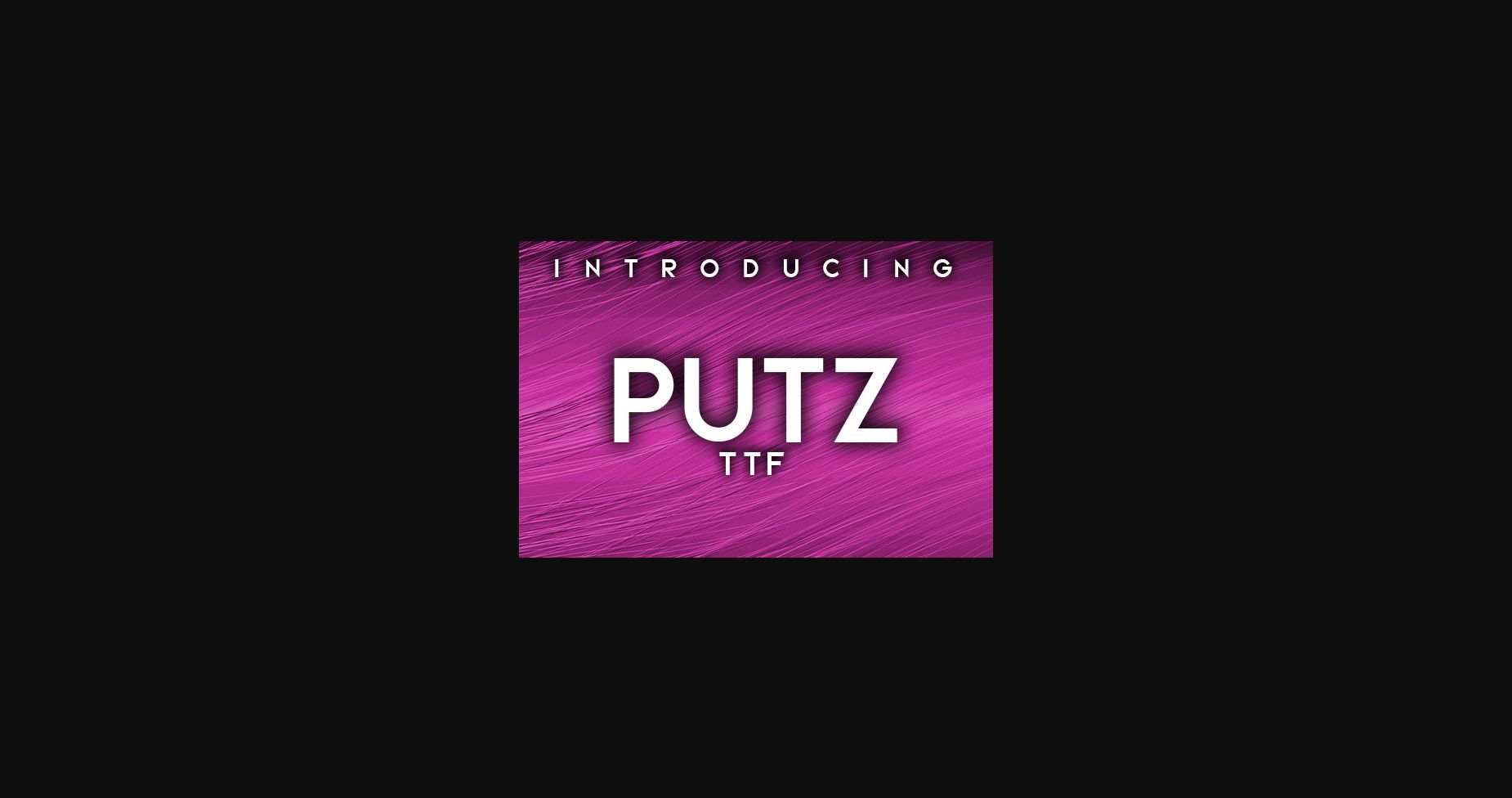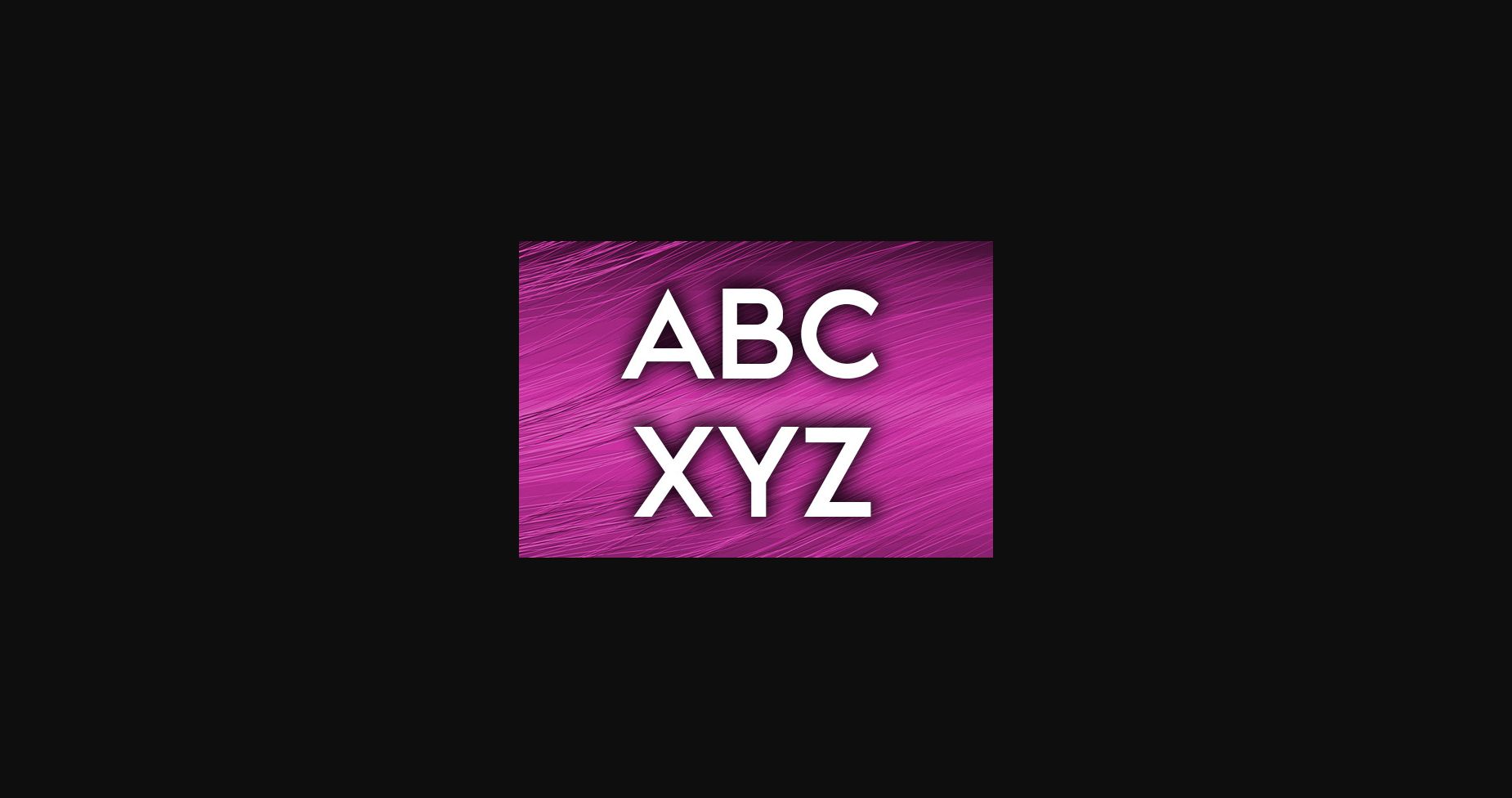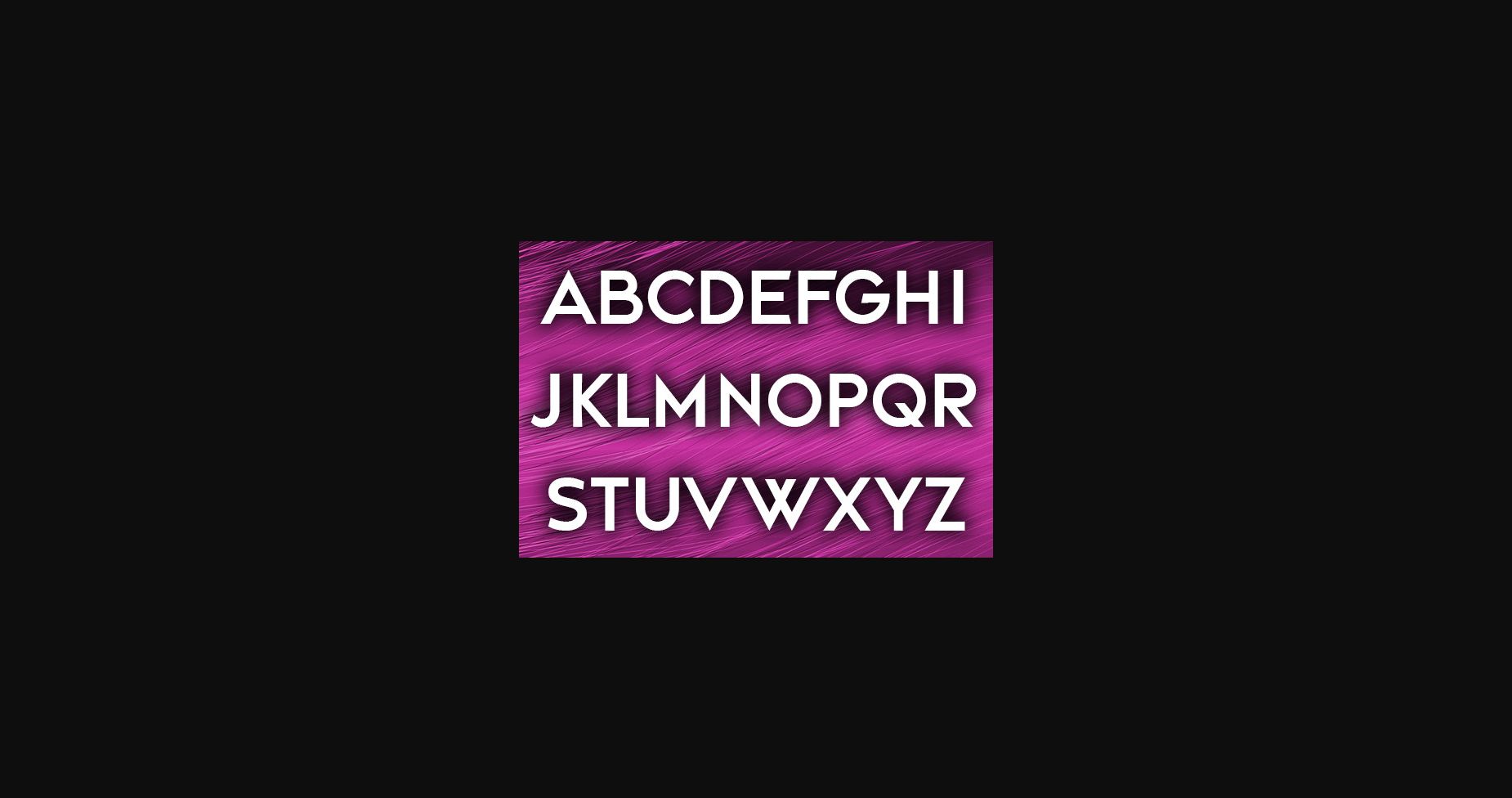
HomeSans Serif FontsPutz Font Sans Serif Fonts Putz Font FacebookXPinterestWhatsApp 1 of 5 ... Putz Font Poster 2... Putz Font Poster 3... Putz Font Poster 4... Putz Font Poster 5... About Putz Font Putz is elegant Sans Serif font that will make your designs look stunning. Use this font on posters, flyers, and t-shirts. DOWNLOAD NOW People also explored Habanero Jelly Font Halloween Spooky Font Hindya Font Mobile Font Elderflower Font Fastfood Font Santa’s Hat Font Coconut Butter Font Peeps 402 0 TagsPutzPutz Font Previous articleHighway FontNext articleAgency Font LEAVE A REPLY Cancel reply Comment: Please enter your comment! Name:* Please enter your name here Email:* You have entered an incorrect email address! Please enter your email address here Website: Save my name, email, and website in this browser for the next time I comment. Personal Use Free Sheiloria Personal Use Free Read more about this font Brandon Bromley Personal Use Free Read more about this font BD TinyFont Personal Use Free Read more about this font Good Times Personal Use Free Read more about this font BLOG Modern Sans-Serif Fonts That Brands Love in 2025 In 2025, modern sans-serif fonts remain a top choice for brands looking to project clarity, professionalism, and... Transform Your Website: Elevate Your Typography with 7 Best Web Font Generators Exploring Font Trends Using Fonts in Digital Marketing: Tips to Strengthen Your Brand Identity